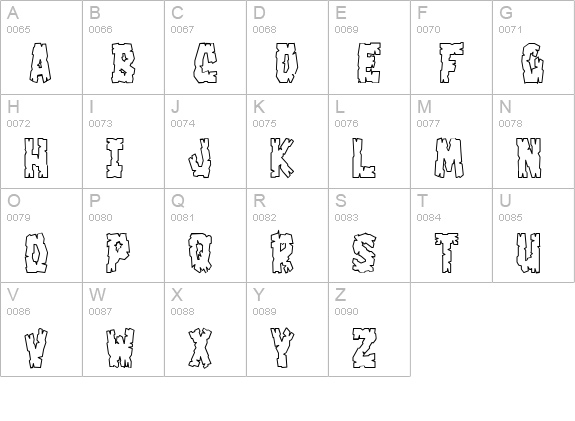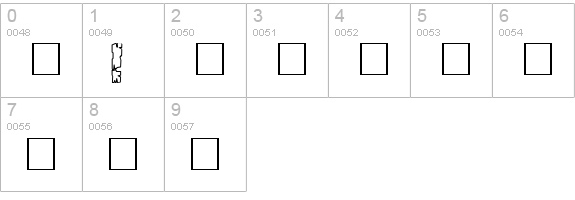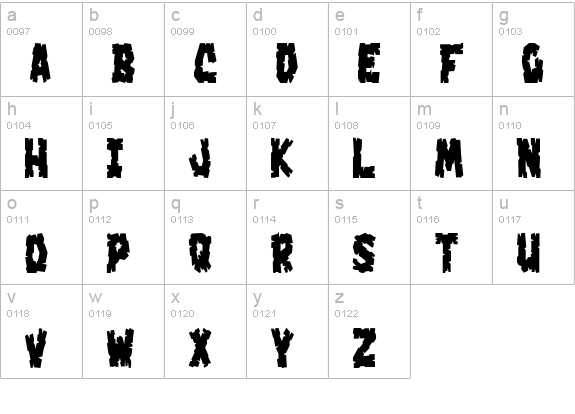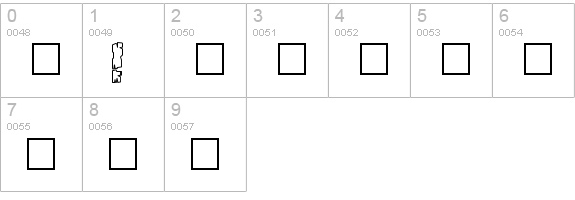
Crakoom! font is a vibrant and eye-catching typeface that will bring a burst of energy to any design project. With its playful curves and bold letterforms, Crakoom! is perfect for adding a touch of fun and creativity to your work. Whether you're designing a poster, logo, or website, this font will make your text pop and stand out from the crowd. The best part? Crakoom! font is absolutely free to download at FontsMarket.com. This means you can easily access this dynamic font and use it in your projects without any cost. So why wait? Give your designs a fresh and exciting look with Crakoom! font today!